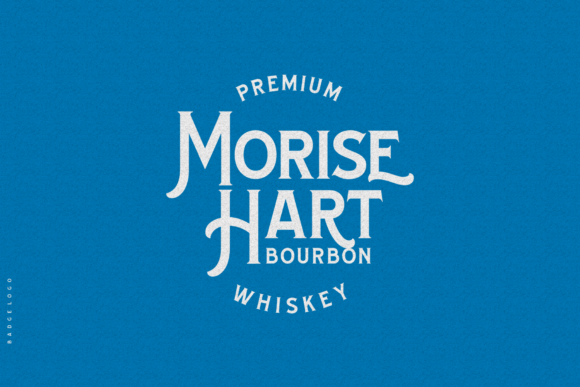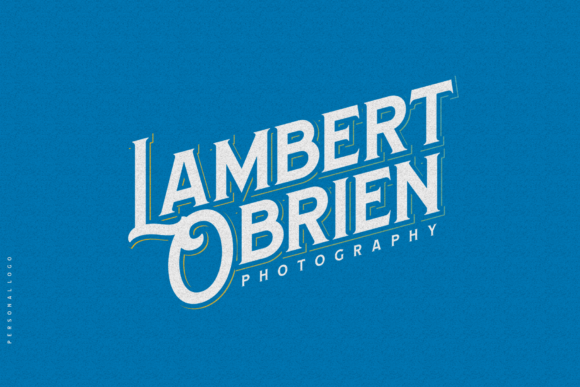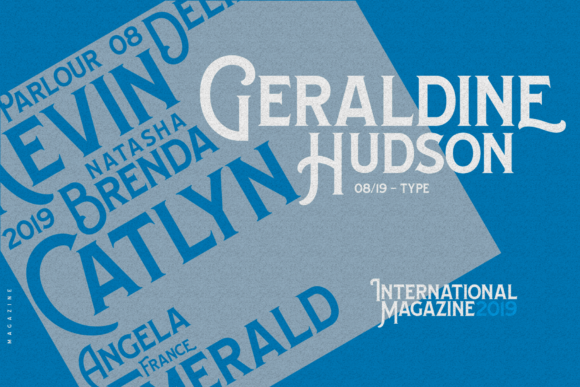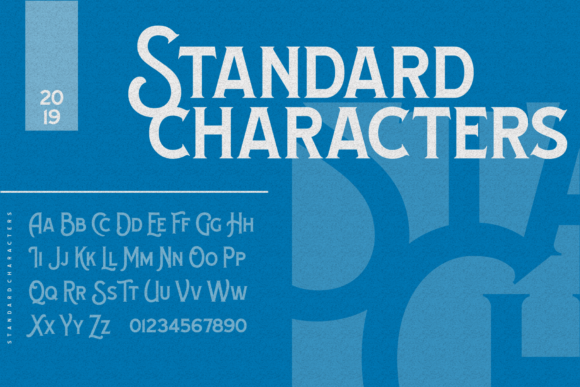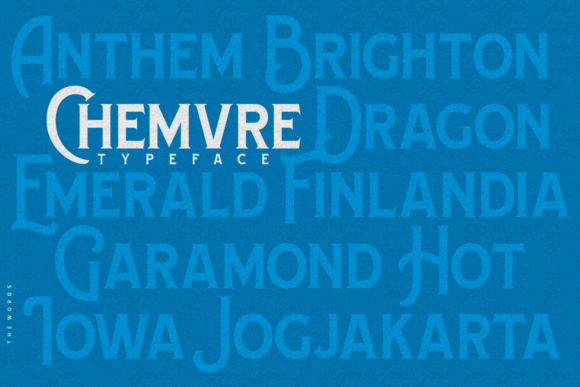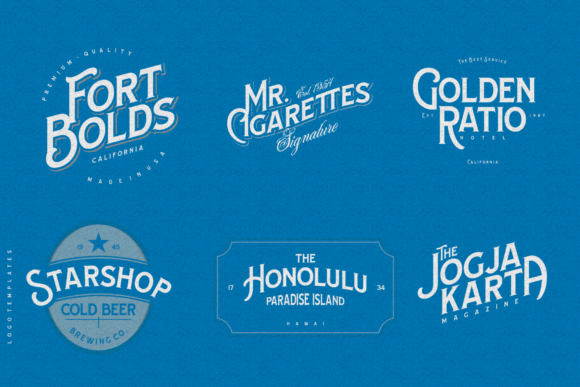
Chemvre Font: A Timeless Classic for Designers and Crafters
Chemvre is a classic serif font with a timeless feel that has been a favorite among designers and crafters for years. Its elegant and sophisticated design makes it perfect for a wide range of projects, from luxury branding to high-end packaging, and from editorial design to digital media. In this article, we’ll take a closer look at the Chemvre font, its history, features, and uses, and explore why it’s a popular choice among designers and crafters.
A Brief History of Chemvre Font
Chemvre is a serif font that was designed with the goal of creating a classic and timeless typeface that would evoke a sense of tradition and elegance. While its exact origins are unclear, Chemvre is believed to have been inspired by traditional serif fonts from the 18th and 19th centuries. Its design is characterized by its elegant lines, refined curves, and precise letterforms, which give it a sophisticated and luxurious feel.
Key Features of Chemvre Font
Chemvre font boasts a range of features that make it a versatile and elegant typeface. Some of its key features include:
• Classic Serif Design: Chemvre’s serif design is inspired by traditional typefaces from the 18th and 19th centuries, giving it a timeless and elegant feel.
• Elegant Lines and Curves: The font’s lines and curves are refined and precise, making it perfect for high-end designs that require a touch of sophistication.
• Wide Range of Weights: Chemvre is available in a range of weights, from light to bold, making it suitable for a variety of applications, from body text to headlines.
• Multilingual Support: The font supports a wide range of languages, making it a great choice for designers who work on international projects.
Uses of Chemvre Font
Chemvre’s versatility and elegance make it suitable for a wide range of design applications, including:
• Luxury Branding: Chemvre’s sophisticated design makes it perfect for luxury brands that want to convey a sense of elegance and refinement.
• Editorial Design: The font’s classic design makes it a great choice for editorial design, including magazines, newspapers, and books.
• Packaging Design: Chemvre’s elegant lines and curves make it suitable for high-end packaging designs that require a touch of sophistication.
• Digital Media: The font’s legibility and clarity make it a great choice for digital media, including websites, mobile apps, and social media graphics.
Why Designers and Crafters Love Chemvre Font
Chemvre has become a favorite among designers and crafters for several reasons:
• Timeless Design: Chemvre’s classic design ensures that it will remain relevant for years to come, making it a great investment for designers and crafters.
• Versatility: The font’s range of weights and multilingual support make it suitable for a wide range of design applications.
• Elegance: Chemvre’s sophisticated design adds a touch of elegance to any project, making it perfect for high-end designs.
Chemvre is a classic serif font with a timeless feel that has become a favorite among designers and crafters. Its elegant design, versatility, and range of features make it suitable for a wide range of design applications, from luxury branding to editorial design. Whether you’re a designer or crafter looking for a sophisticated typeface to add a touch of elegance to your project, Chemvre is definitely worth considering.